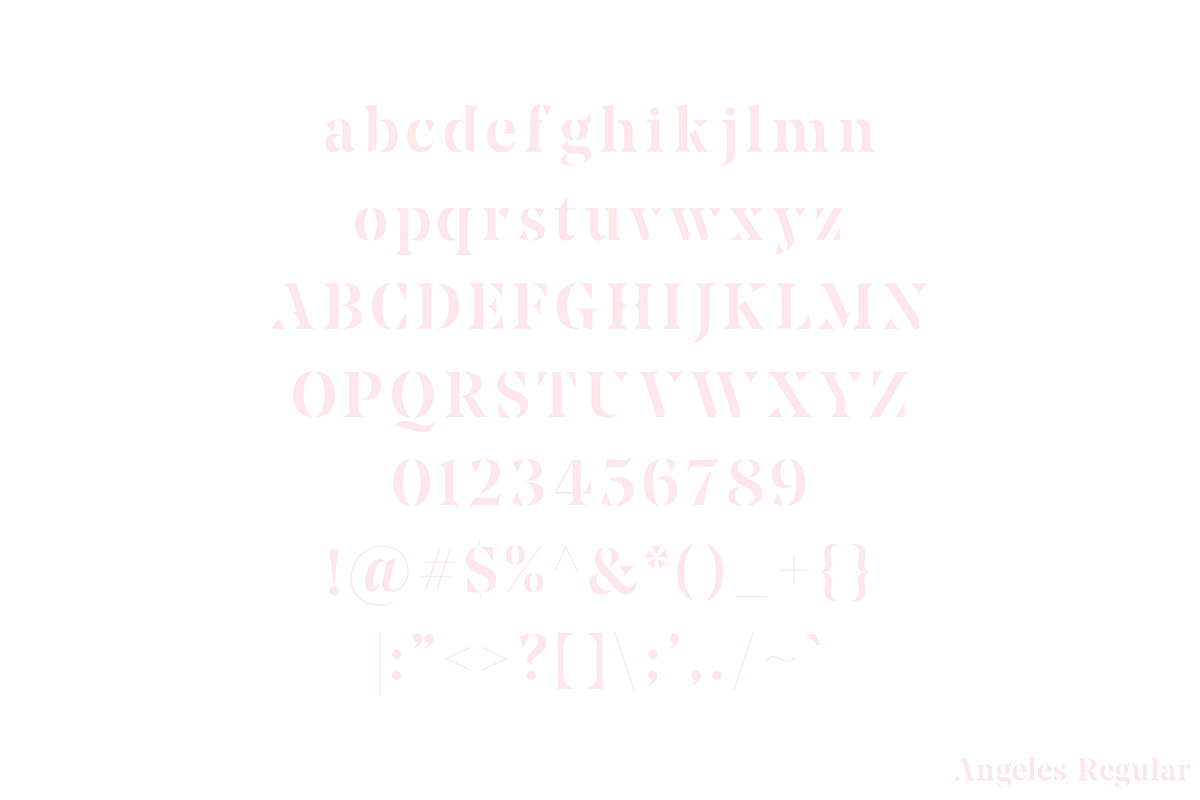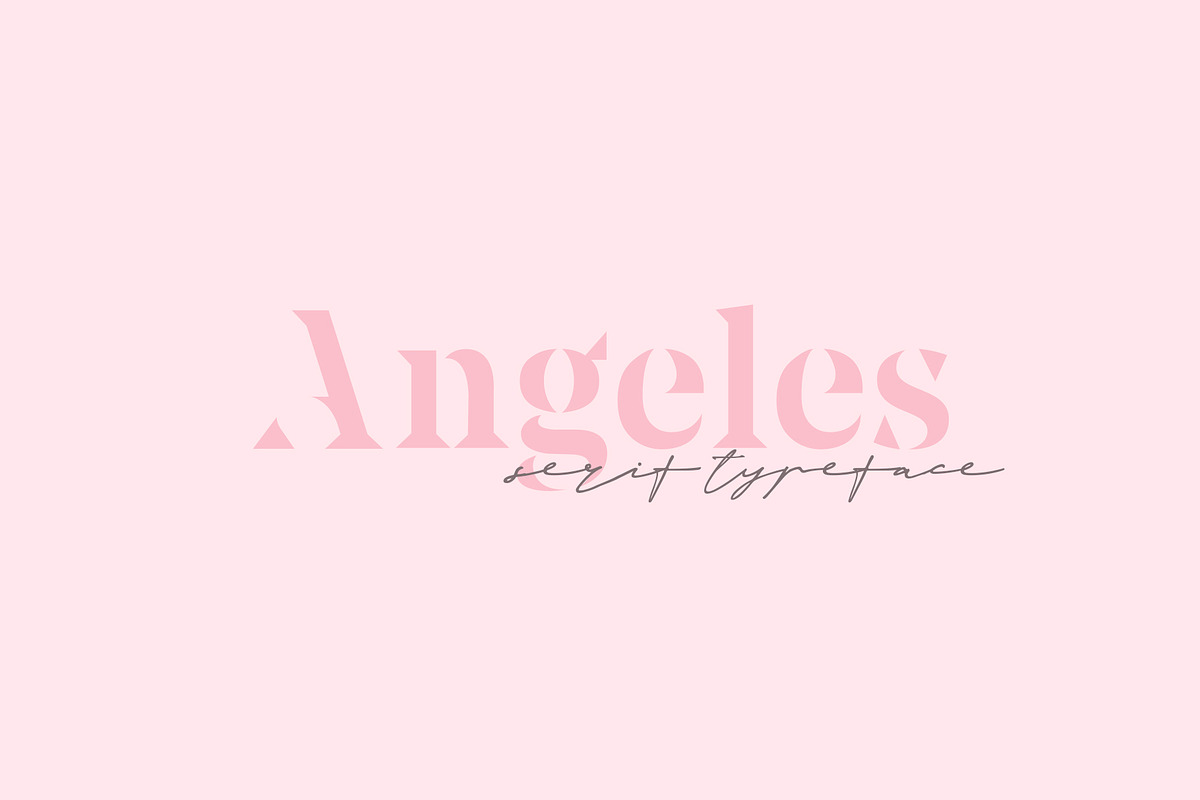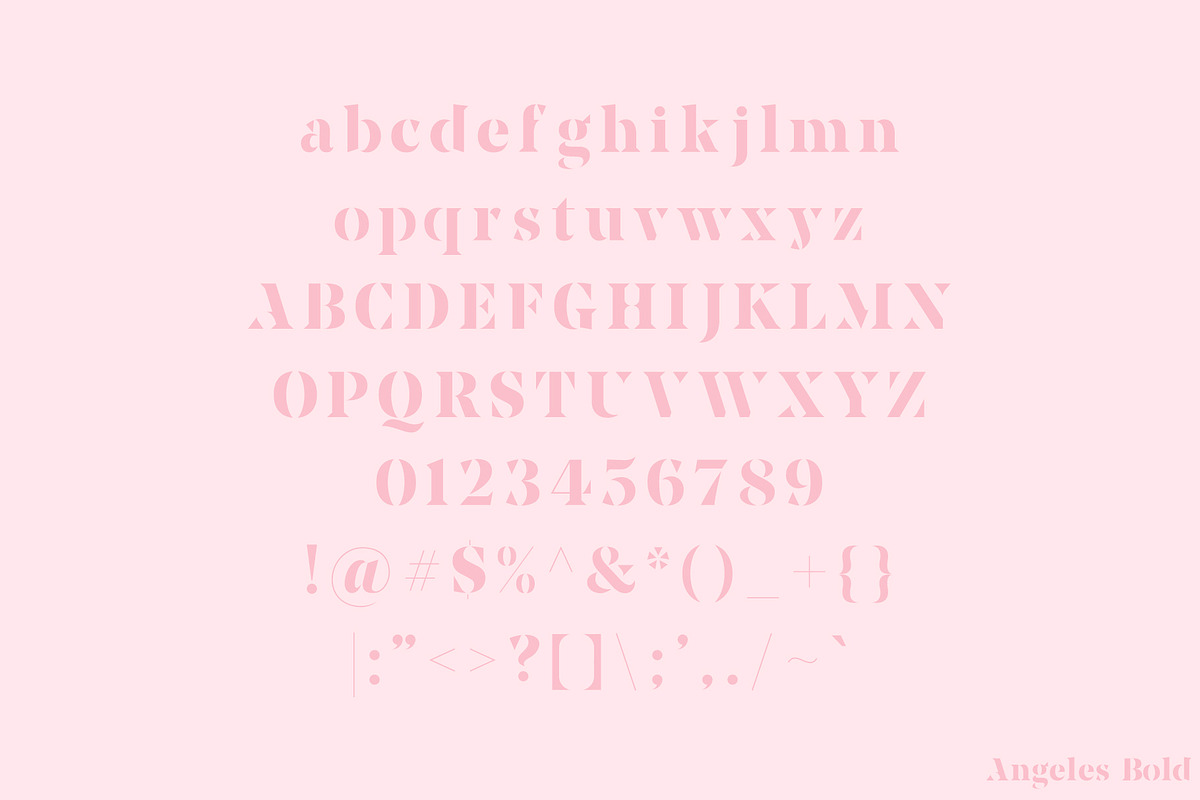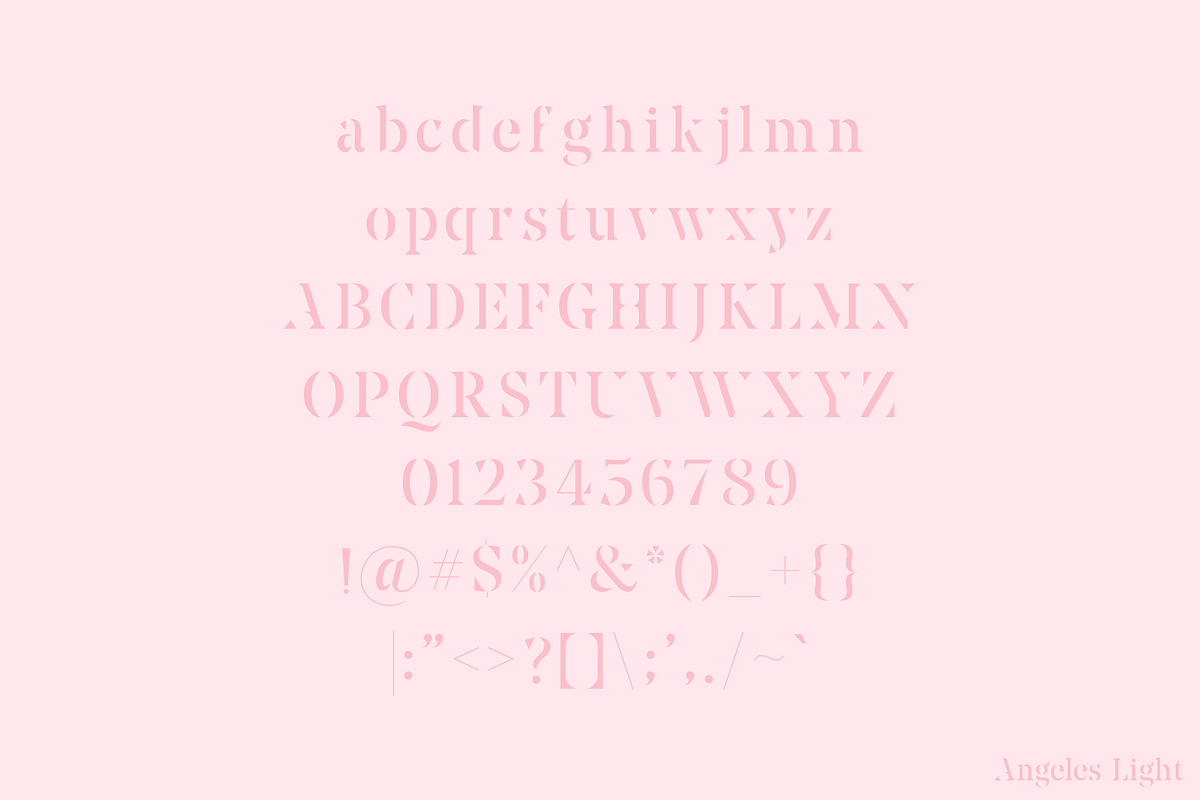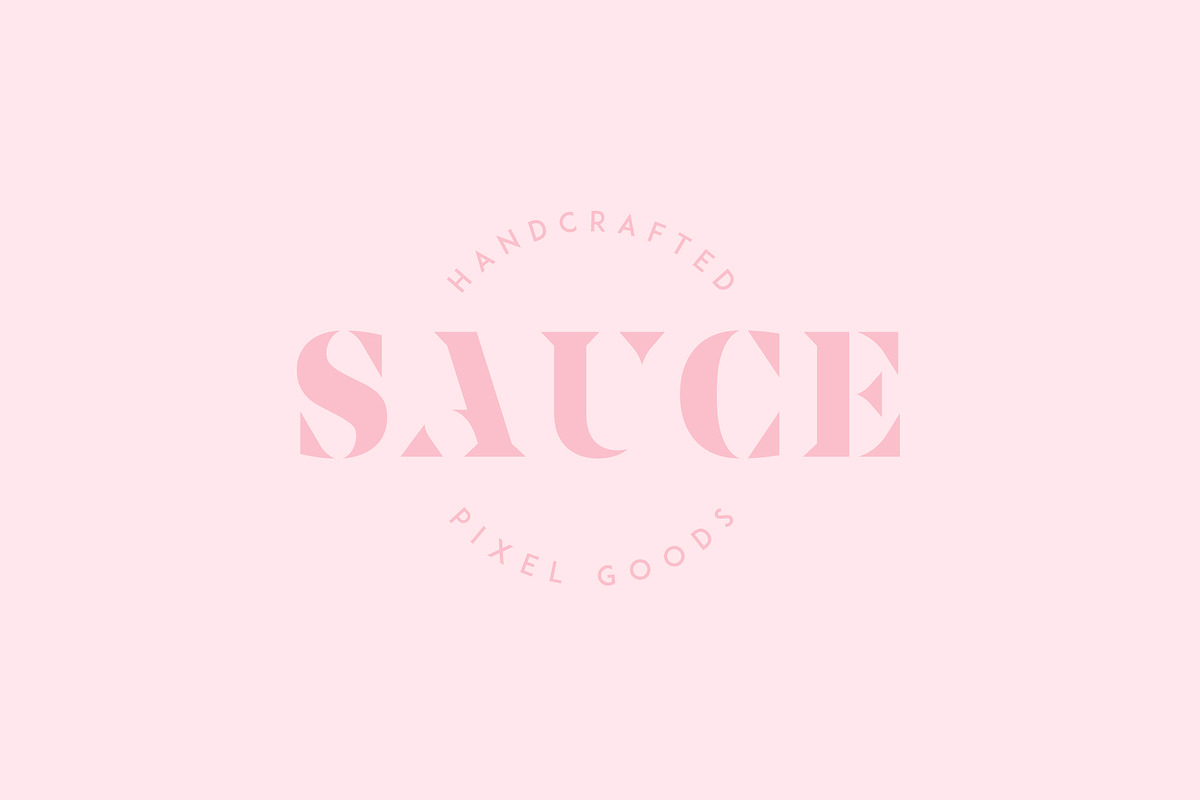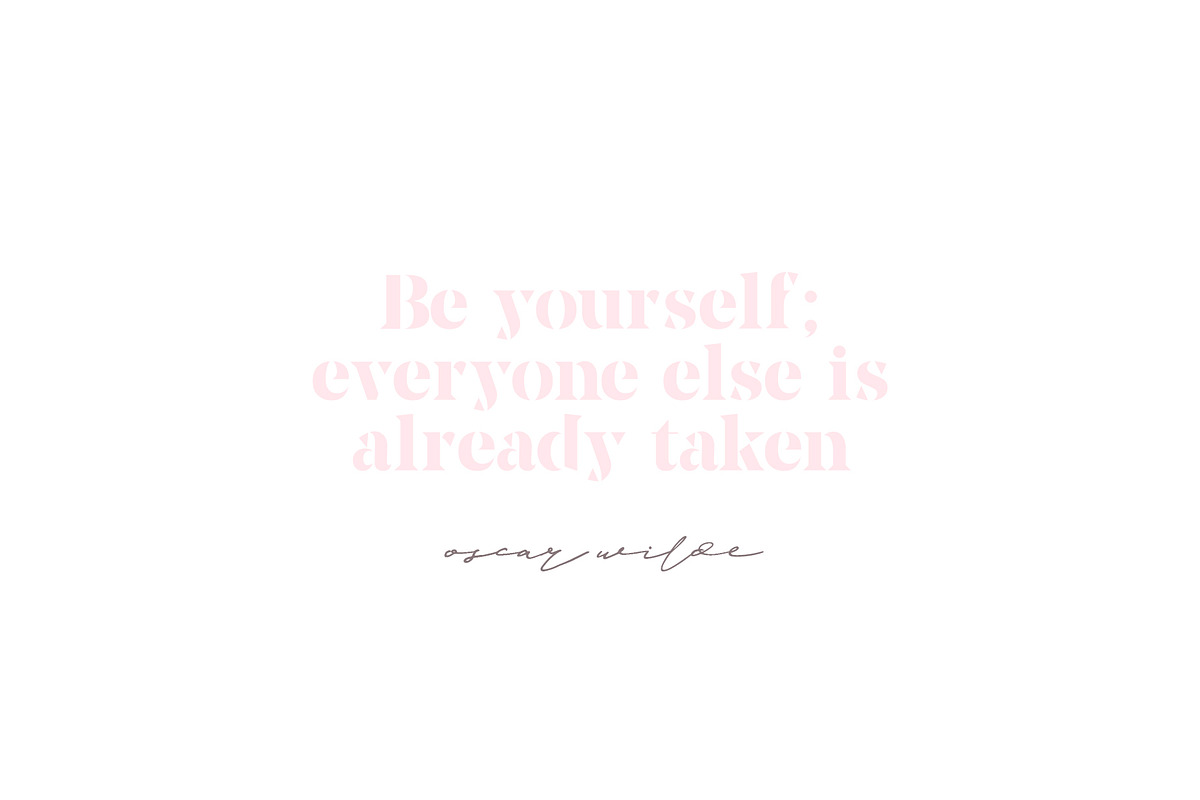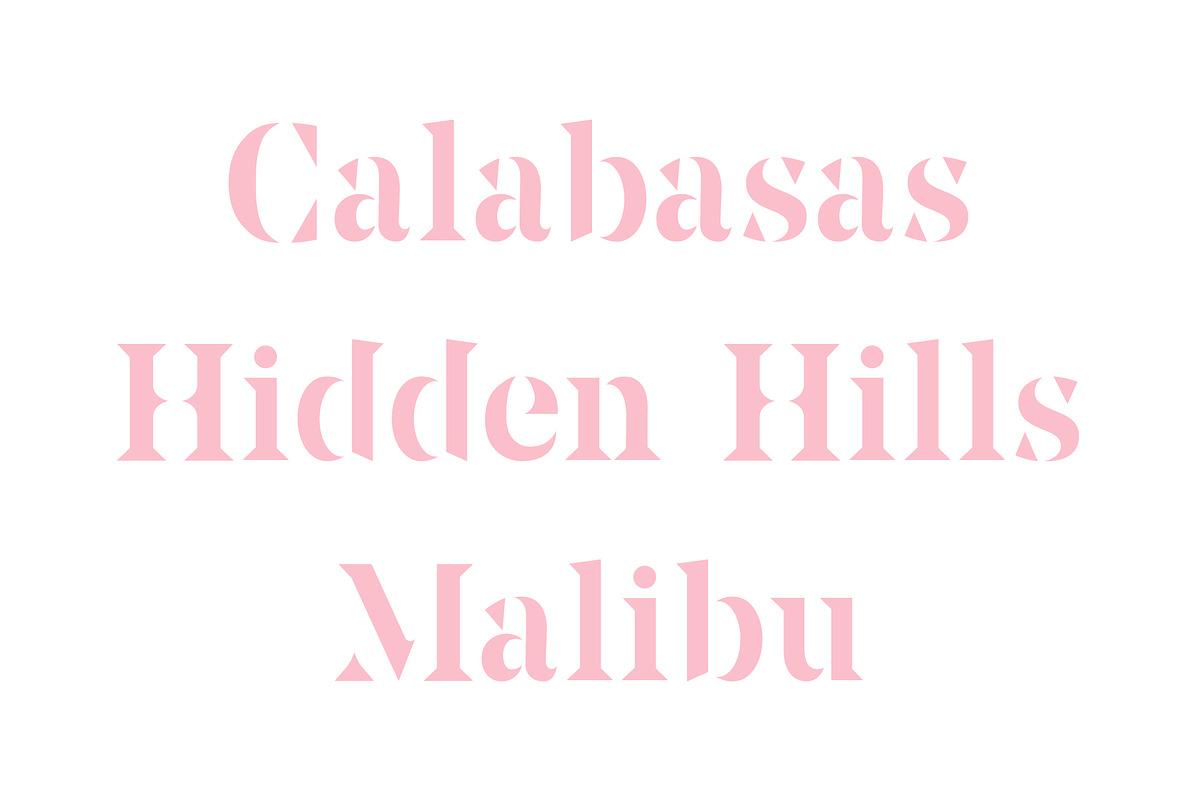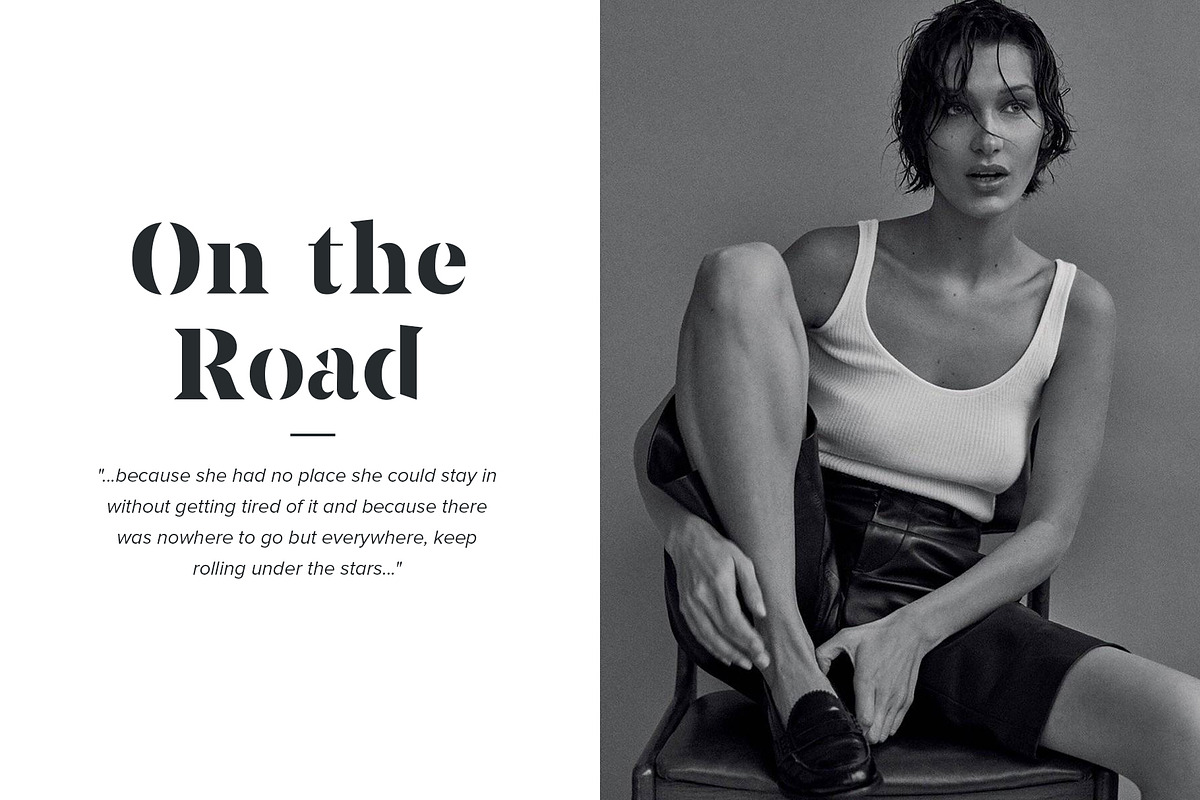
Angeles | A Serif Font Family
Angeles is a strong, classic serif font perfect for creating clean and bold designs
Great for designing strong logos, headlines for magazines, invitations or anything in between. With heavy contrast between the letterforms, this font is perfect for making a statement and staying bold with your designs.
Three weights (Light, Regular & Bold)
Complete range of numbers, symbols and punctuation.